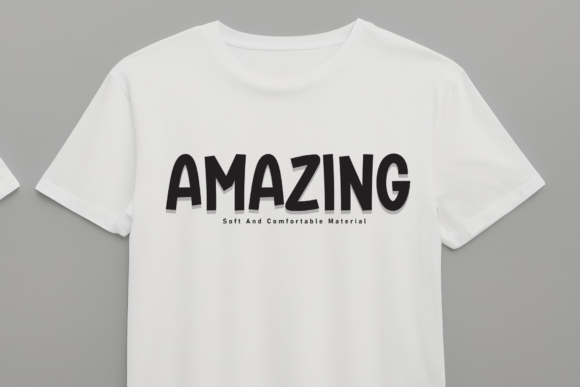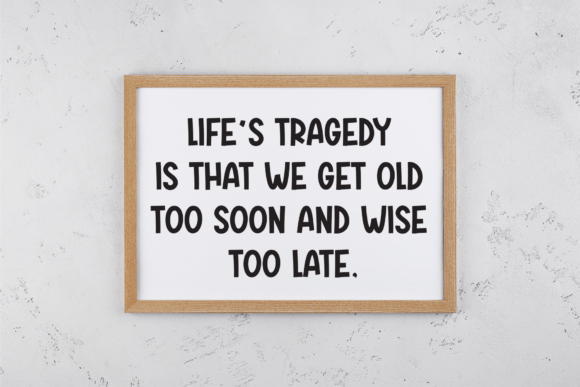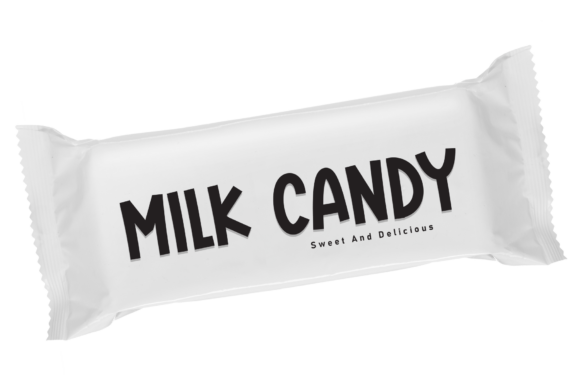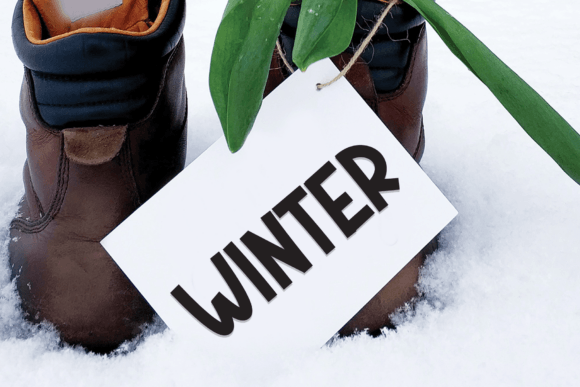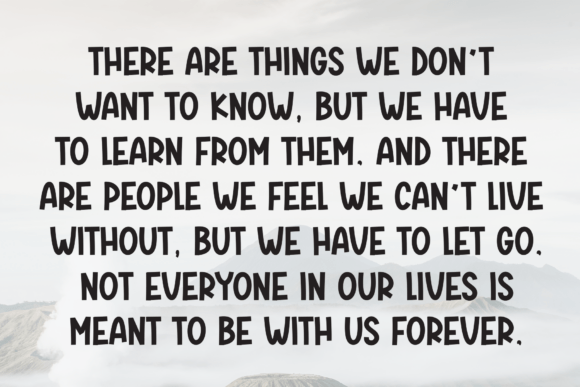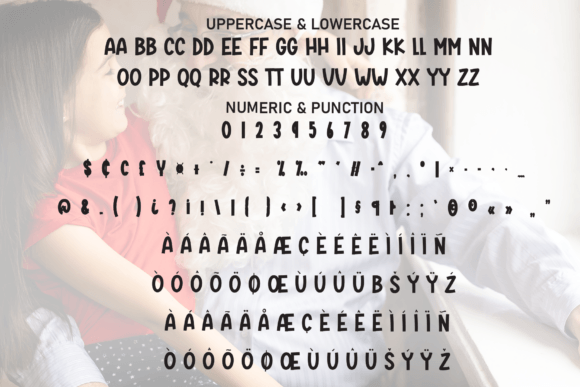
Introduction to Santa Romantic Font
Indulge in the whimsical charm of this endearing, handwritten display font.
Exuding sweetness and warmth, it adds the perfect sprinkle of fun to your creative projects Imagine it gracing wedding invitations or adding a delightful touch to greeting cards.